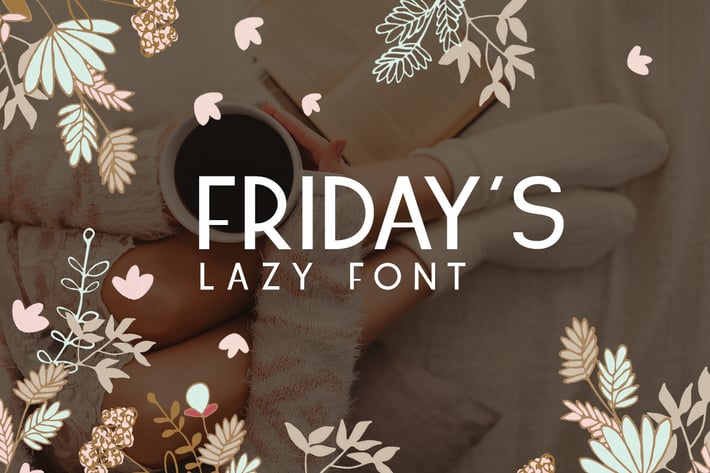
Friday's Font
Webvilla
Friday’s Font - really thin font - Ideal for business card, titles, book cover, presentations, invitations, blogs, handmade craft items, scrap booking, printed paper items and more.